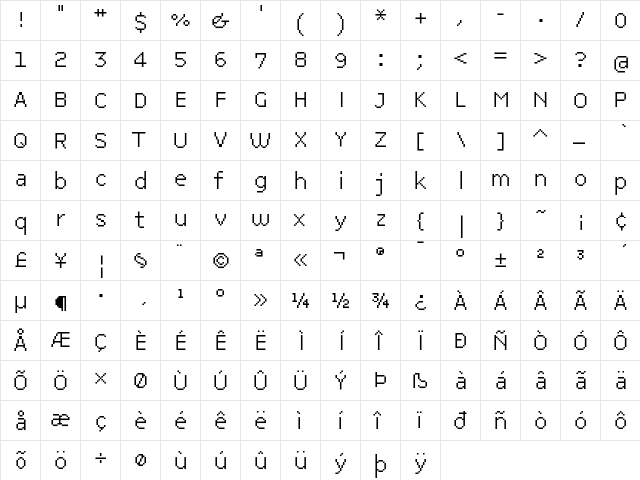
CPCompanyFlash Big
Design Context for CPCompanyFlash Typeface
CPCompanyFlash is a composed and adaptable typeface that performs quietly and consistently across a wide range of design contexts.
Pro Tip: Pair CPCompanyFlash with a font of contrasting weight or personality to build a more expressive typographic hierarchy.